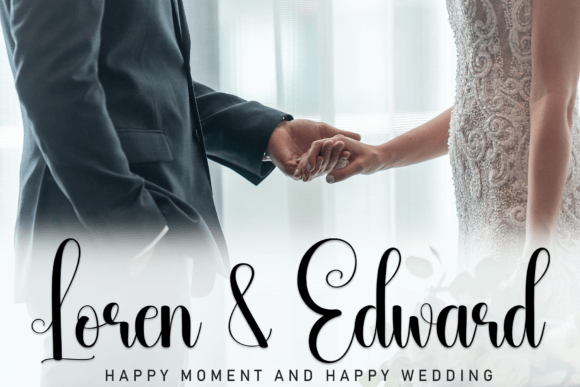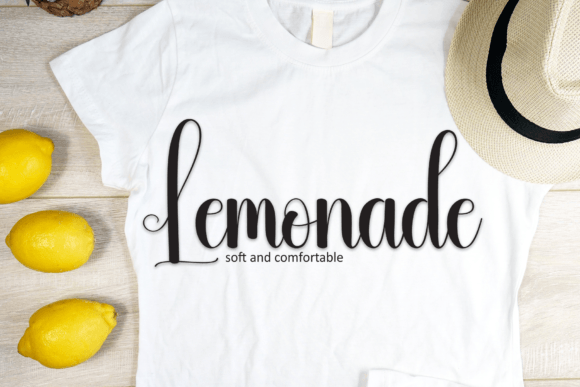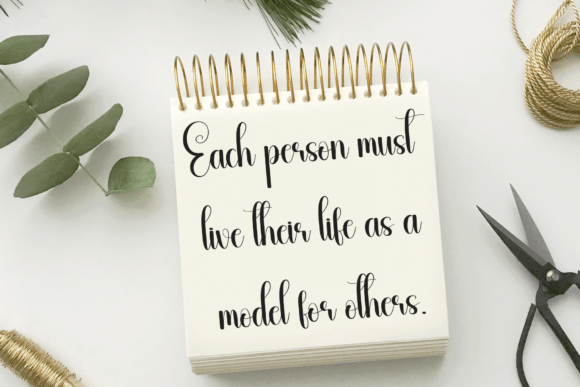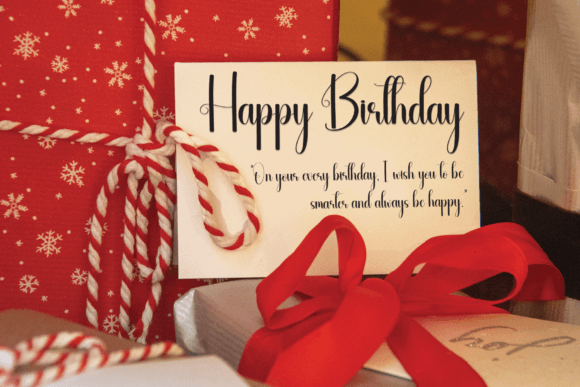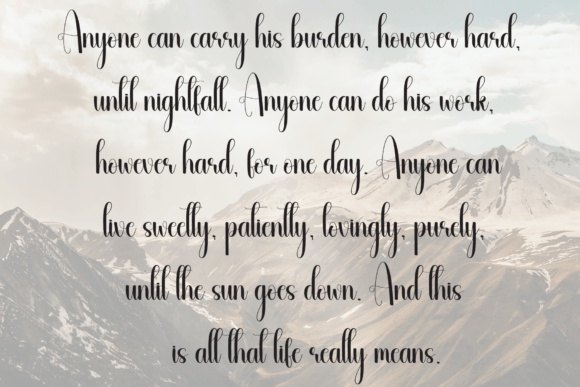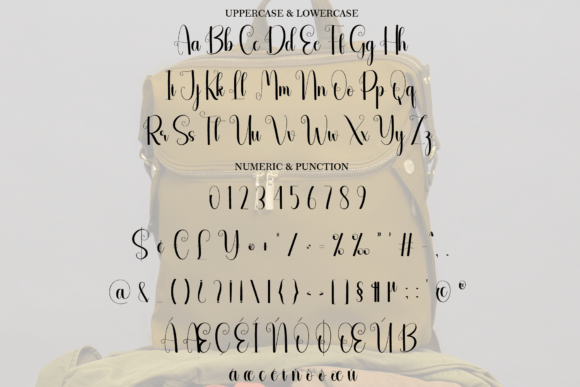
Adding a Personal Touch to Your Designs
Do you ever find yourself rummaging through your old backpack, unearthing forgotten memories and mementos from years past? For designers, that feeling can be especially true when searching for the perfect font to bring a project to life. Perhaps you’re crafting a wedding invitation or designing a card for a special occasion – whatever it is, you want it to feel personal and authentic.
Enter Backpack Font, a sweet and friendly handwritten font that’s perfect for adding a fun touch to your designs. This charming font is ideal for occasions where you want to convey a sense of playfulness and warmth. With its cursive script and whimsical flair, Backpack Font is sure to bring a smile to the faces of your recipients.
Key Features of Backpack Font
- Unique Characteristic: Backpack Font features a unique blend of modern and vintage elements, creating a distinctive and eye-catching visual style.
Backpack Font Review
I recently had the chance to work with Backpack Font, and I must say it’s an interesting combination of modern and playful elements. ✨ The font’s clean lines and minimalist aesthetic make it a great choice for a wide range of designs, from logos to brochures. ✨ The weight system is also well-designed, with subtle variations that add depth and visual interest to text. ✨ The font’s versatility is one of its strongest selling points.
- Clean and modern aesthetic
- Well-designed weight system
- Versatile and suitable for various design projects
- Smooth lines and curves
- May not be the best choice for complex or technical text due to its relatively simple design
- Lack of distinctiveness in certain font weights
- May not be suitable for very formal or professional designs
- Some characters may be difficult to read at smaller sizes
Overall, I’d say Backpack Font is a solid choice for designers looking for a modern and playful font. While it may have some limitations, its versatility and clean design make it a great option for a wide range of projects. Just be sure to consider the context and intended use of the font before making a final decision.
Backpack Font is ideal for:
- Casual and creative projects
- Editorial and publishing content
Alternatives to Backpack Font for Designers
Inter Font is a modern sans-serif typeface designed for digital use. It is a highly legible font with a wide range of weights, making it suitable for various design applications, including typography, logos, and user interfaces. Inter Font is a great alternative to Backpack Font for designers who want a clean and minimalist look.
Inter Font and Backpack Font share similarities in their clean and modern aesthetic, but Inter Font has a more neutral tone and a wider range of weights, making it more versatile for different design projects.
Montserrat Font is a geometric sans-serif typeface inspired by urban environments. It is a highly legible font with a strong, geometric feel, making it suitable for designs that require a bold and modern look. Montserrat Font is a great alternative to Backpack Font for designers who want a font with a strong personality.